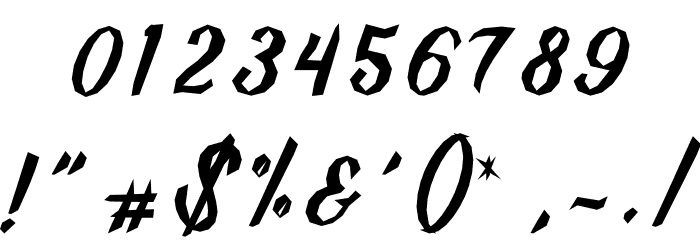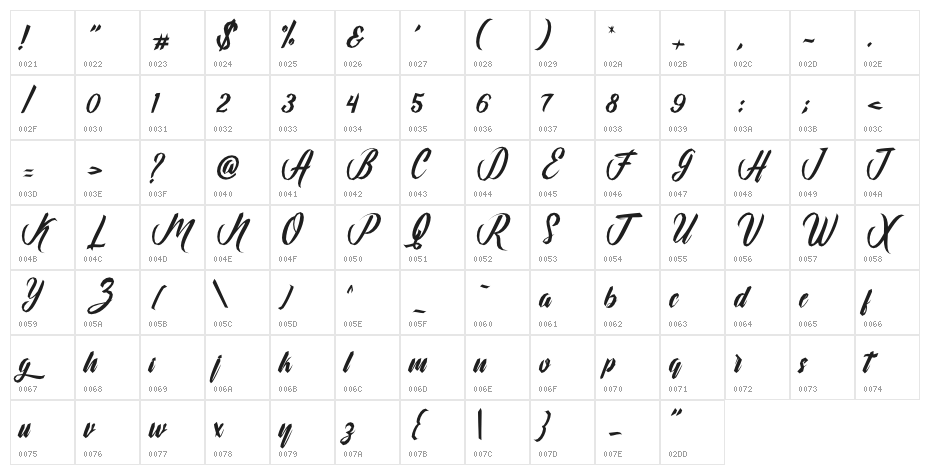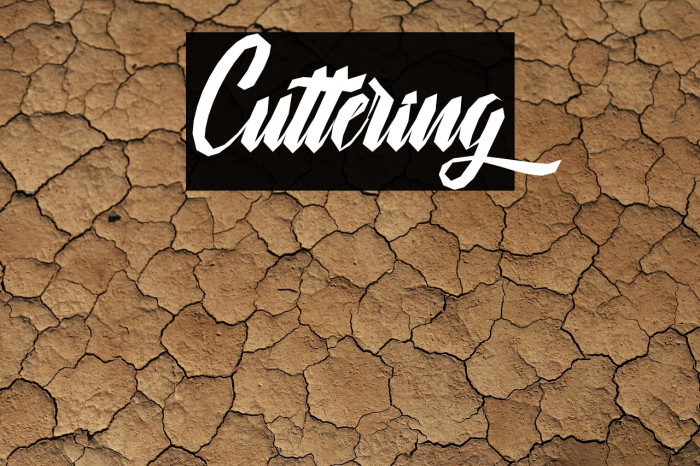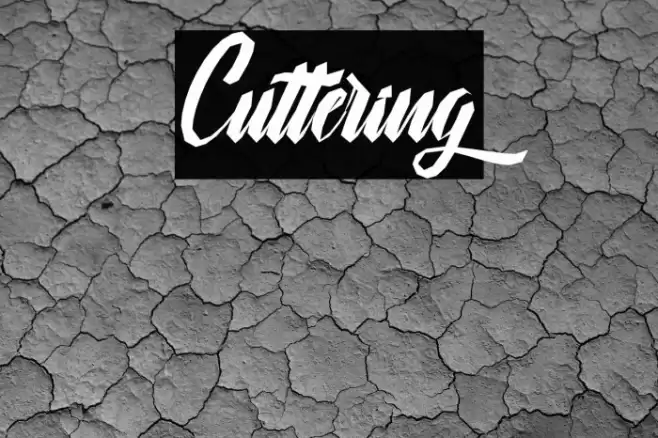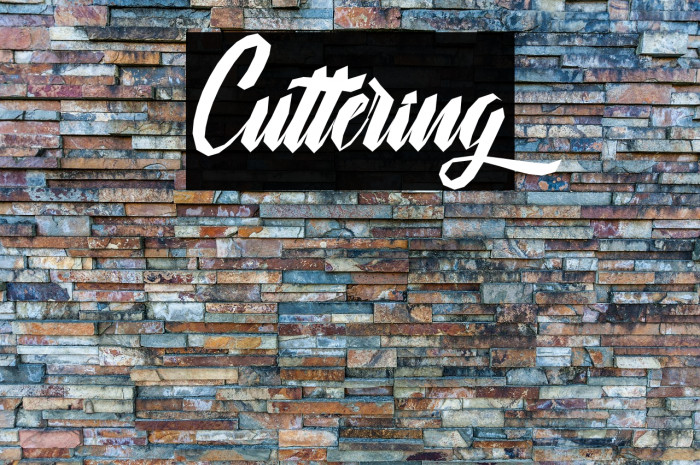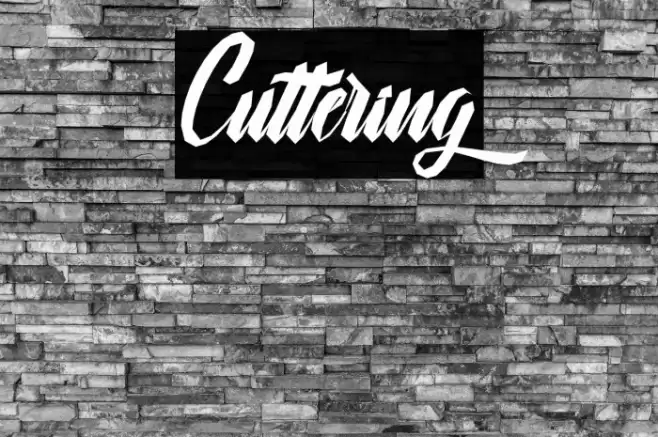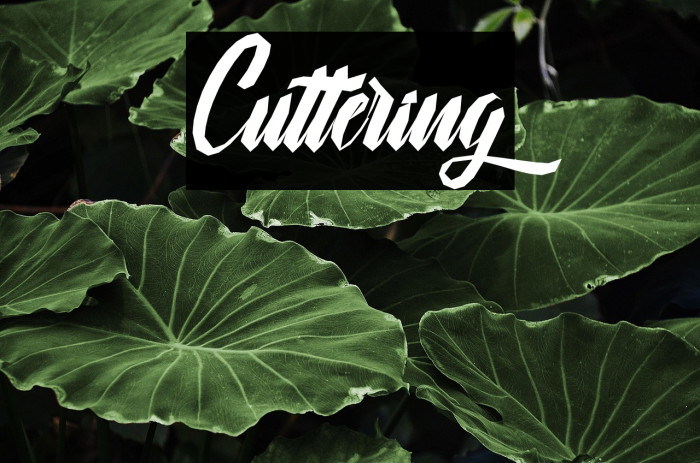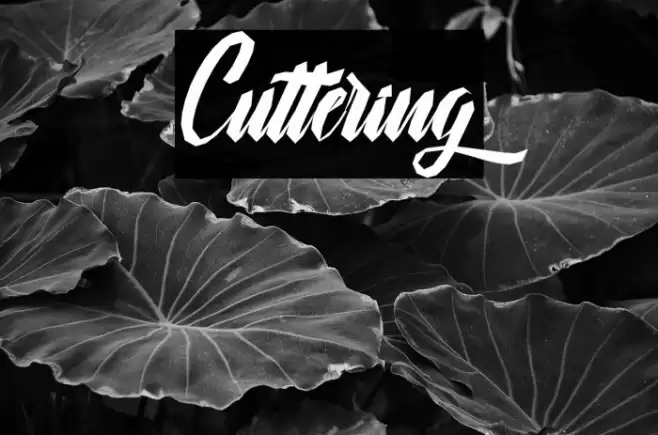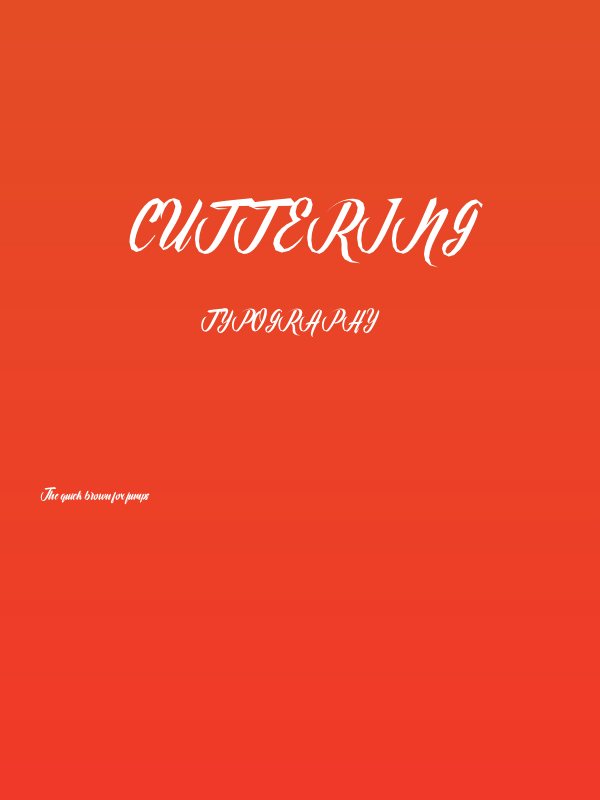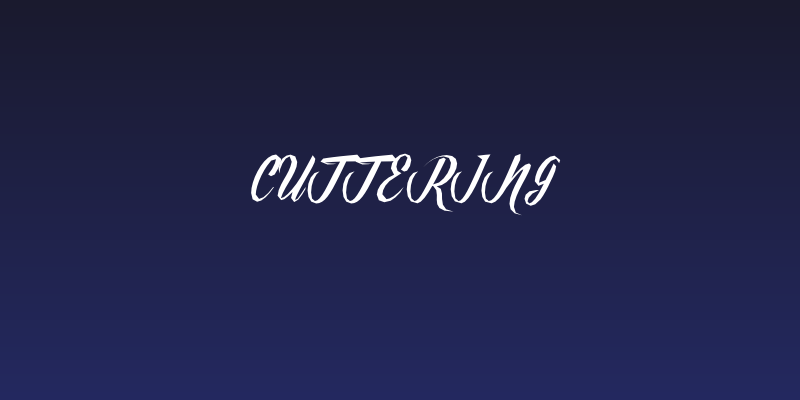
Cuttering Font
Cuttering Description
This font exhibits a bold, cursive style with a strong emphasis on fluidity and elegance. The characters are connected, creating a seamless flow that mimics traditional calligraphy. The uppercase letters are ornate, with sweeping curves and flourishes, while the lowercase letters maintain a consistent slant, enhancing readability. The numbers and special characters are designed to match the overall aesthetic, featuring similar curves and strokes. This font is ideal for projects that require a touch of sophistication and artistic flair.
| Proposed Projects | Suitable for wedding invitations, greeting cards, logos, and branding materials that require a sophisticated and artistic touch. |